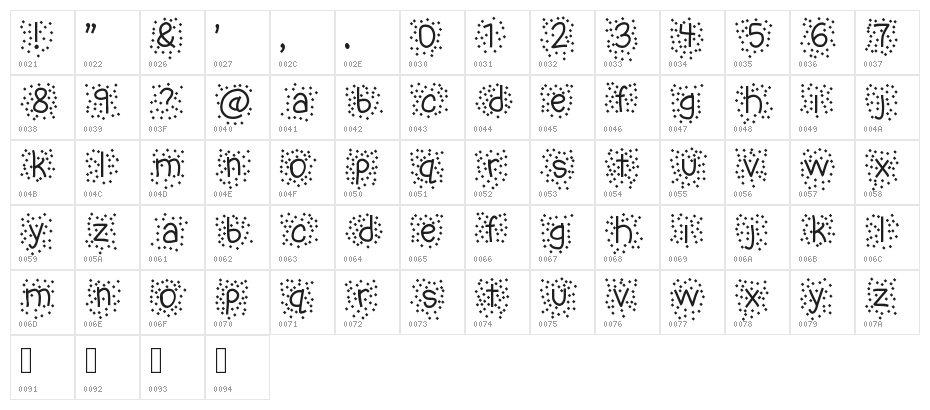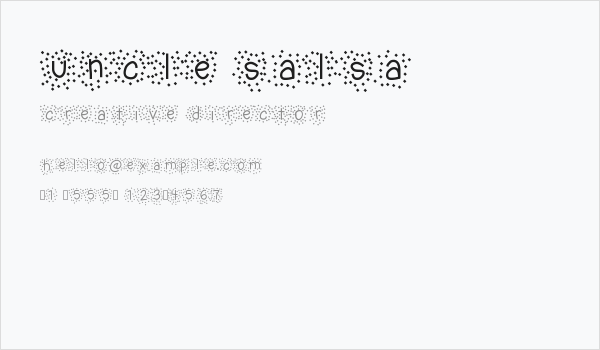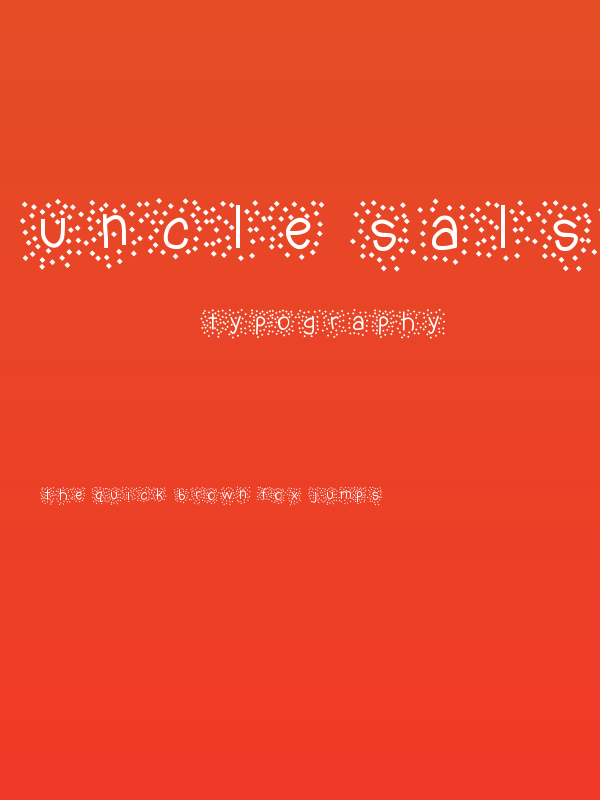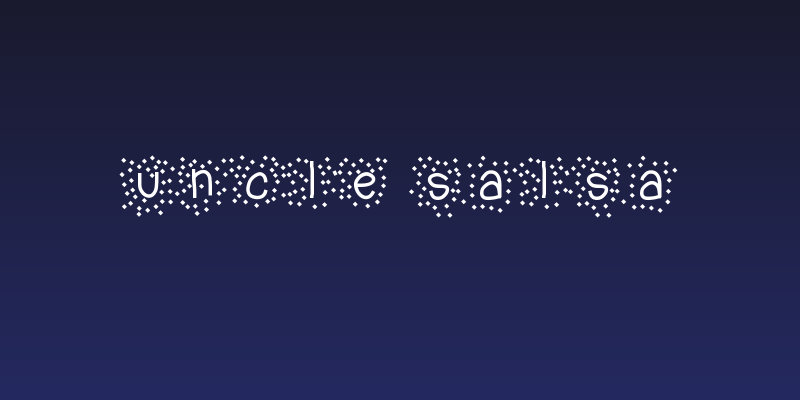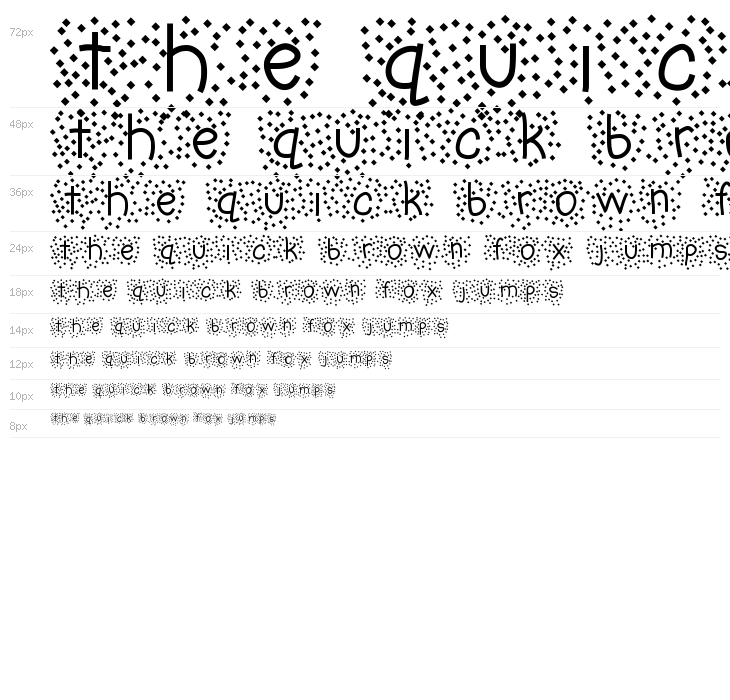
uncle salsa Font
uncle salsa Description
This font features a playful and decorative style, characterized by its unique dotted pattern surrounding each character. The letters are rounded and slightly irregular, giving a whimsical and informal appearance. The uppercase and lowercase letters maintain a consistent style, with a moderate height difference between them. Numbers follow the same playful design, ensuring uniformity across all characters. Special characters are also included, each adorned with the distinctive dotted pattern. This font is ideal for projects that require a fun and engaging visual element.